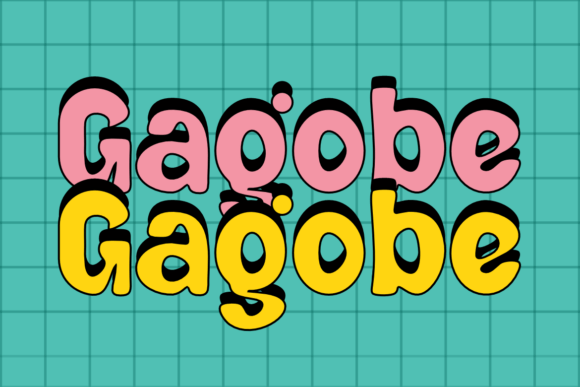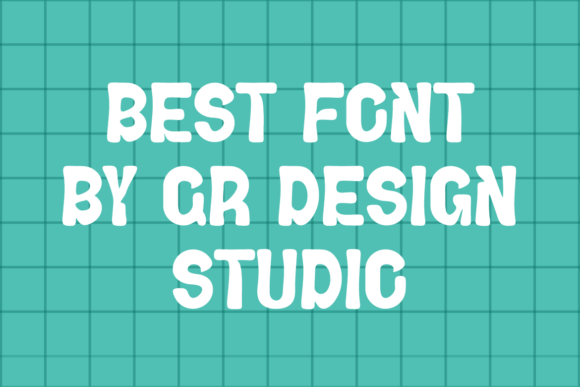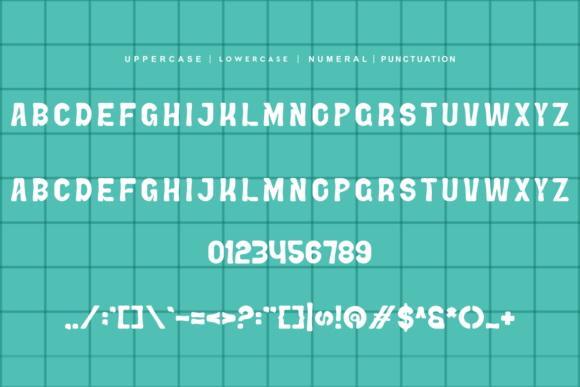
Introduction to Gagobe Font
Do you remember that moment when the perfect font finally brings your creative project to life? The moment when the words and images on your screen come together in perfect harmony, making your design truly shine? For designers, finding the right font can be a game-changer, and that’s exactly what the Gagobe Font aims to deliver.
With its unique sans serif design, the Gagobe Font has the potential to elevate your creative ideas to the highest level. Whether you’re working on a commercial project or a personal passion project, this high-quality font is sure to make a statement. And the best part? It’s completely free to download, making it an invaluable resource for designers of all levels.
So, what sets the Gagobe Font apart from other design resources? Its clean lines, transparent background, and professional feel make it the perfect addition to any design project. In this article, we’ll take a closer look at the Gagobe Font and explore its many benefits for designers.
Key Features of Gagobe Font
- Unique and Creative Typography: The Gagobe Font offers a distinctive and eye-catching design, perfect for adding a touch of personality to your creative project.
- High-Quality Design Resource: This font is a high-quality design resource that can elevate your visual content and make it stand out.
- Transparent Background: The Gagobe Font features a transparent background, making it easy to layer over other design elements and create a cohesive look.
- Resolution: The font is designed to be high-resolution, making it perfect for use in print and digital applications.
- Size: The font comes in a range of sizes, from 12-point to 72-point, allowing you to customize the look of your text to suit your design needs.
Honest Review: Gagobe Font
I recently had the chance to work with the Gagobe Font, and I must say it’s been a game-changer for my creative projects. This high-quality design resource has become a staple in my workflow.
- What works well: ✨ The Gagobe Font is incredibly versatile and can be used for a wide range of creative projects. Its sleek and modern design makes it perfect for branding, logos, and digital design.
However, I do have to mention a few limitations:
- ⚠️ The Gagobe Font may not be the best choice for projects that require a more traditional or classic look. Its modern design may not be suitable for every design style.
Overall, I’m thoroughly impressed with the Gagobe Font. It’s a high-quality design resource that has become a valuable addition to my design toolkit. If you’re looking for a modern and versatile font, I would definitely recommend giving the Gagobe Font a try.
Getting the Most Out of Gagobe Font
To get the most out of the Gagobe Font, use it in combination with other design elements, such as images and graphics. This will help you create visually appealing and effective designs for your creative projects.
Common Use Cases for Gagobe Font
The Gagobe Font is commonly used in creative projects, such as graphic design, digital art, and typography. Its high-quality design and transparent background make it an ideal choice for a variety of applications.